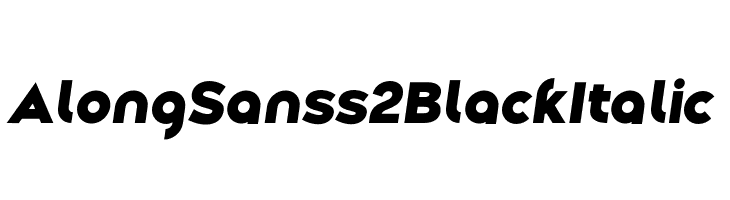
A bold, modern sans-serif font with clean lines and geometric structure.
A bold, geometric sans-serif typeface with a modern and assertive style.
A bold, italicized sans-serif font with a modern geometric style.
A modern, geometric sans-serif font with an extra light weight.
A modern, extra light italic sans-serif font with clean lines and a refined aesthetic.
A bold, modern sans-serif font with geometric shapes and strong lines.
A modern, light sans-serif font with clean lines and balanced proportions.